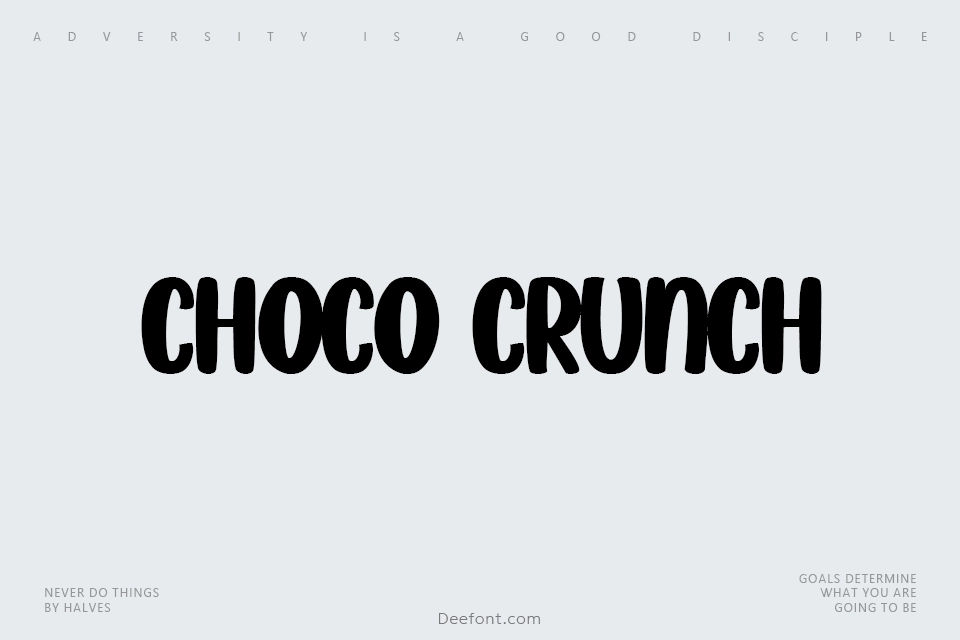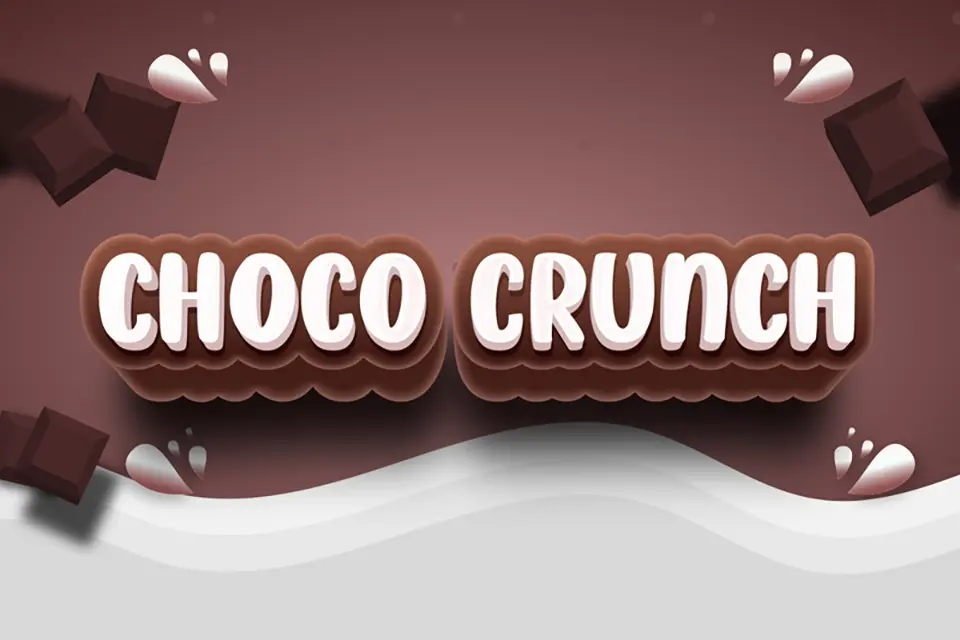
Choco Crunch Font
Choco Crunch is a bold, playful display font featuring thick, rounded characters with a whimsical touch. This decorative typeface combines uniform strokes and low-contrast design, perfect for children’s books, playful branding, packaging, posters, logos, and social media content. With its condensed appearance and strong presence, it brings fun and engaging aesthetics to any design project requiring a friendly, eye-catching typography solution.